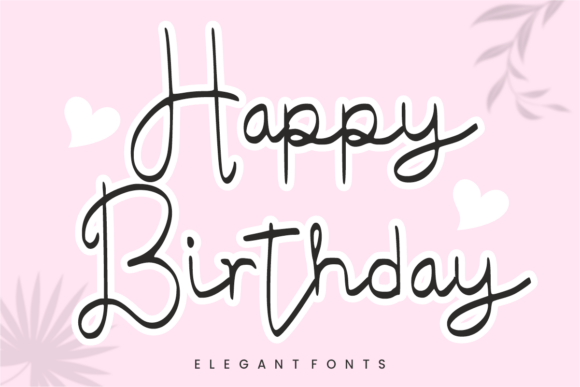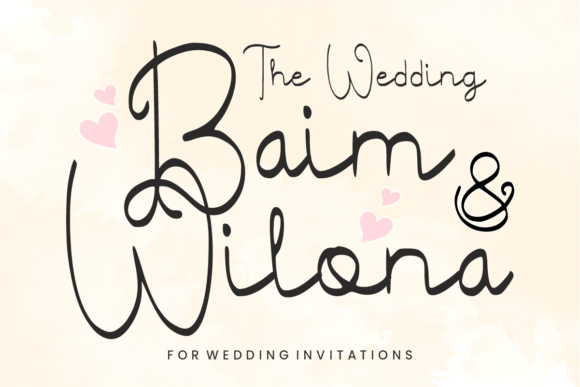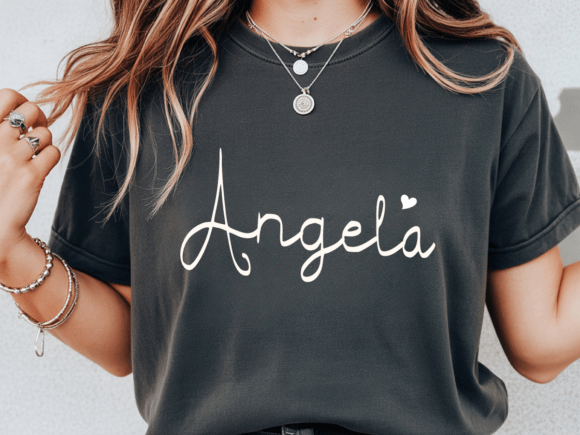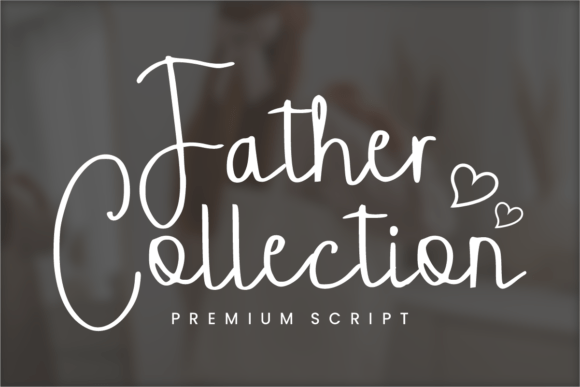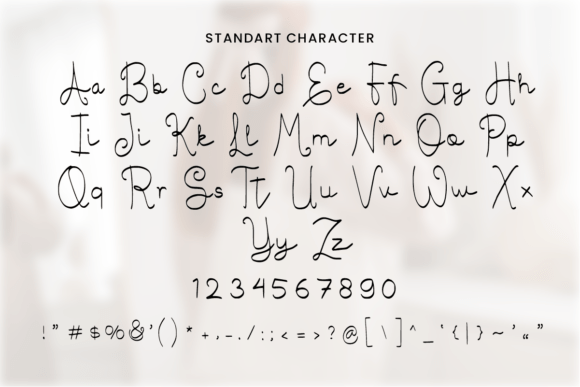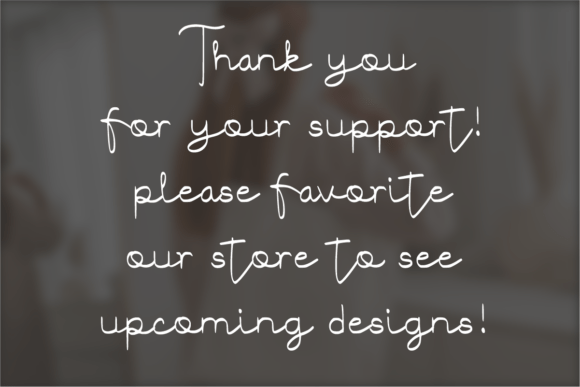
Hop into Spring with Easter Handwriting: A Charming Script Font 🌸
As designers, we’ve all been there – stuck on a project, searching for that perfect font to bring our vision to life. I recall working on a spring-themed card design for a client, and feeling frustrated with the usual fonts that seemed too bold or overpowering. That’s when I discovered Easter Handwriting, a sweet and airy script font that perfectly captured the essence of the season. In this article, we’ll dive into the world of Easter Handwriting, exploring its features, uses, and some helpful tips and tricks.
A Personal Review: What I Love About Easter Handwriting ✨
Easter Handwriting has quickly become one of my go-to fonts for spring-inspired designs. Here are a few things that I love about it:
- ✨ Light and airy feel: The thin, elegant lines of Easter Handwriting give it a personal and heartfelt touch, making it perfect for projects that require a touch of whimsy.
- ✅ Clean and monoline style: The font’s clean and minimalist aesthetic makes it versatile and easy to pair with other design elements.
- 🌸 Playful yet sophisticated: Easter Handwriting strikes the perfect balance between playfulness and sophistication, making it suitable for a wide range of projects, from holiday cards to branding and packaging.
While Easter Handwriting is an amazing font, there are a few small quirks to be aware of:
- 🤔 Limited character set: As with any script font, Easter Handwriting may not have an extensive character set, which can limit its use in certain projects.
- ⚠️ Requires careful kerning: As with any handwritten font, Easter Handwriting may require some manual kerning to achieve optimal results.
- Experiment with OpenType features, such as glyphs and stylistic alternates, to add visual interest to your design.
The Story Behind Easter Handwriting
Easter Handwriting was designed with the intention of capturing the warmth and joy of the spring season. The font’s creator wanted to create a script font that was both elegant and playful, perfect for a wide range of design projects. With its thin, elegant lines and clean monoline style, Easter Handwriting is sure to bring a touch of springtime charm to any design.
| Is Easter Handwriting suitable for body text? | While Easter Handwriting is a beautiful font, it’s best suited for headlines and titles rather than body text. Its elegant, handwritten style may be difficult to read in large blocks of text. |